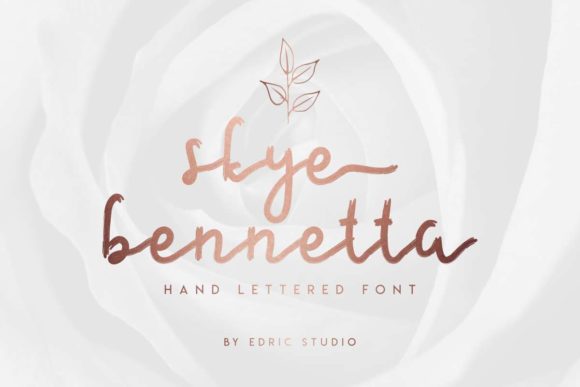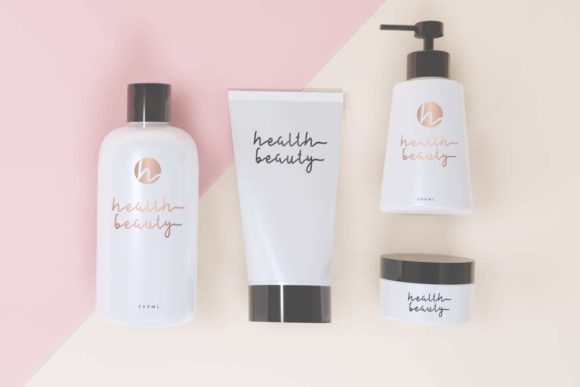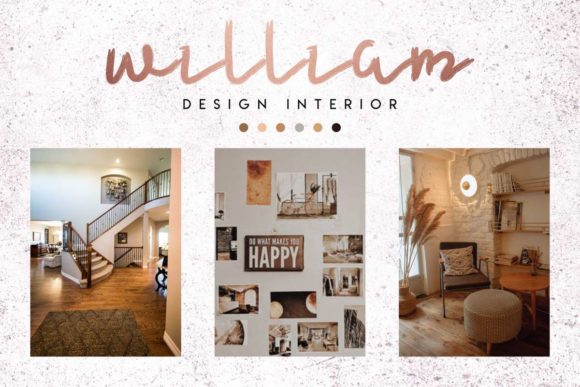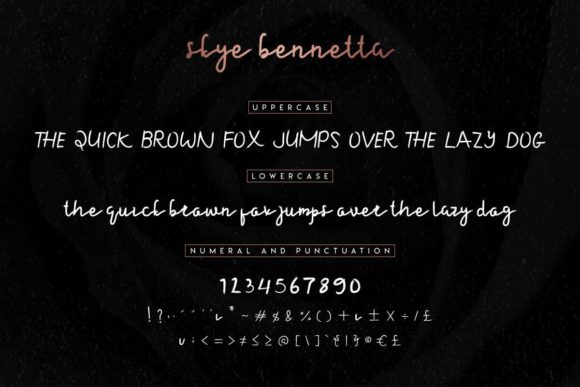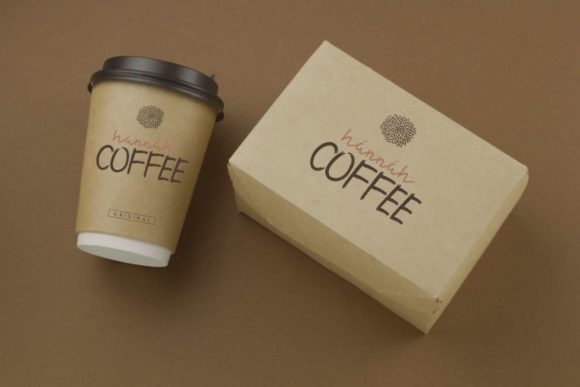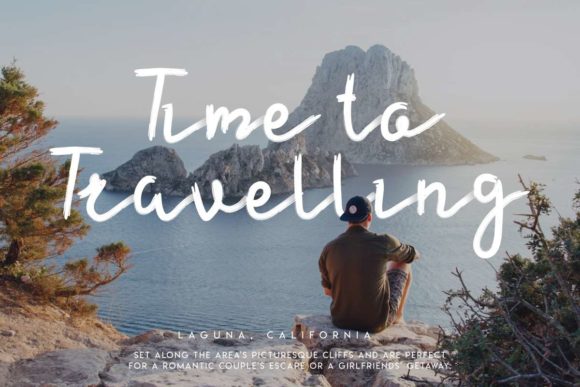
Introduction to Skye Bennetta Font
Have you ever been scribbling in your journal, lost in the rhythm of your pen strokes, and suddenly, you stumble upon a font that transports you to a world of elegance and charm? For designers and creatives, this moment of discovery can be a game-changer. It’s a spark that ignites a new project, a fresh idea, or a beautiful design. For us, that moment came when we found the Skye Bennetta Font.
This stunning handwritten font is a masterpiece that pays homage to classic calligraphy. Its authentic feel and sophisticated style make it a valuable resource for any designer looking to elevate their creative project. Whether you’re working on a wedding invitation, a social media post, or a greeting card, the Skye Bennetta Font is sure to bring a touch of class and sophistication to your design.
Key Features of Skye Bennetta Font
- High-quality, elegant font design suitable for creative projects and design resources.
- Features a transparent background, allowing for easy customization and versatility in design applications.
- Designed with precision and attention to detail, ensuring a professional and polished look for any design project.
- Compatible with a range of resolutions, including high-resolution displays, ensuring crisp and clear text rendering.
- Perfect for use in a variety of creative projects, from branding and marketing materials to digital art and graphics.
Honest Review: Skye Bennetta Font
I recently had the chance to work with the Skye Bennetta Font, and I must say it’s been a pleasant experience. As a designer, I’m always on the lookout for high-quality design resources that can elevate my creative projects. The Skye Bennetta Font definitely fits the bill.
Here are some things that work well with this font:
- ✨ Elegant and sophisticated design aesthetic that’s perfect for luxury brands and high-end creative projects
- ✨ Wide range of customization options, making it suitable for a variety of design needs
- ⚠️ Limited availability of font sizes and weights, which may not be ideal for complex designs
- ⚠️ Transparent background may not be suitable for all design projects, especially those with complex layouts
Overall, I’m impressed with the Skye Bennetta Font. While it may not be the most versatile font, it’s definitely a high-quality design resource that can add a touch of sophistication to your creative projects. If you’re looking for a font that exudes elegance and sophistication, the Skye Bennetta Font is definitely worth checking out.
Tips for Getting the Most Out of Skye Bennetta Font
To get the most out of the Skye Bennetta Font, experiment with different font sizes, colors, and styles. Combine the font with other design elements to create a unique and eye-catching design. You can also use the font in combination with other design resources to create a cohesive look.
The Skye Bennetta Font is suitable for a variety of creative projects, including branding, marketing materials, and digital designs. It’s also a great option for personal projects, such as creating a portfolio or a website. With its high-quality design and transparent background, the Skye Bennetta Font is a valuable design resource for any project.